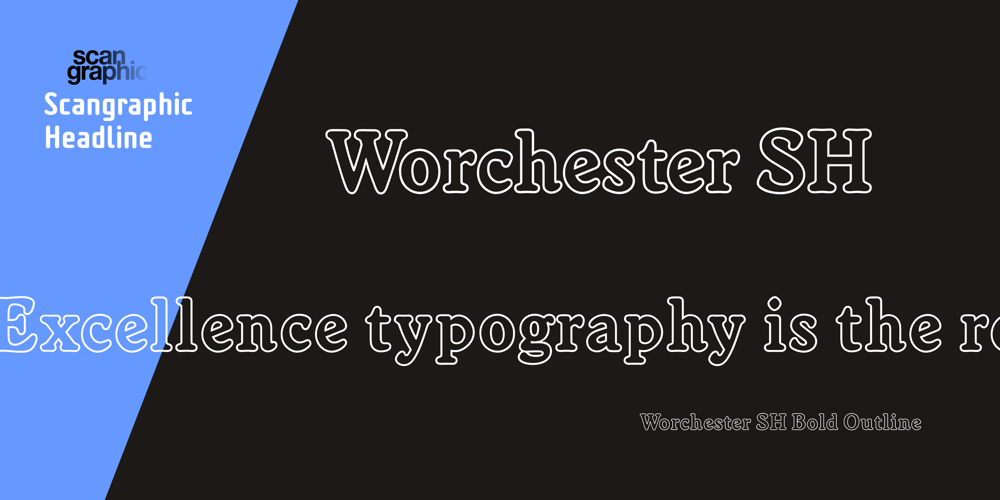
Worchester Round SH
Worchester Round SH font
Worchester Round SH Font Family was designed by Adrian Williams and published by Scangraphic Digital Type Collection. Worchester Round SH contains 5 styles and family package options. Since the release of these fonts most typefaces in the Scangraphic Type Collection appear in two versions. One is designed specifically for headline typesetting (SH: Scangraphic Headline Types) and one specifically for text typesetting (SB Scangraphic Bodytypes). The most obvious differentiation can be found in the spacing. That of the Bodytypes is adjusted for readability. That of the Headline Types is decidedly more narrow in order to do justice to the requirements of headline typesetting. The kerning tables, as well, have been individualized for each of these type varieties. In addition to the adjustment of spacing, there are also adjustments in the design. For the Bodytypes, fine spaces were created which prevented the smear effect on acute angles in small typesizes. For a number of Bodytypes, hairlines and serifs were thickened or the whole typeface was adjusted to meet the optical requirements for setting type in small sizes. For the German lower-case diacritical marks, all Headline Types complements contain alternative integrated accents which allow the compact setting of lower-case headlines.